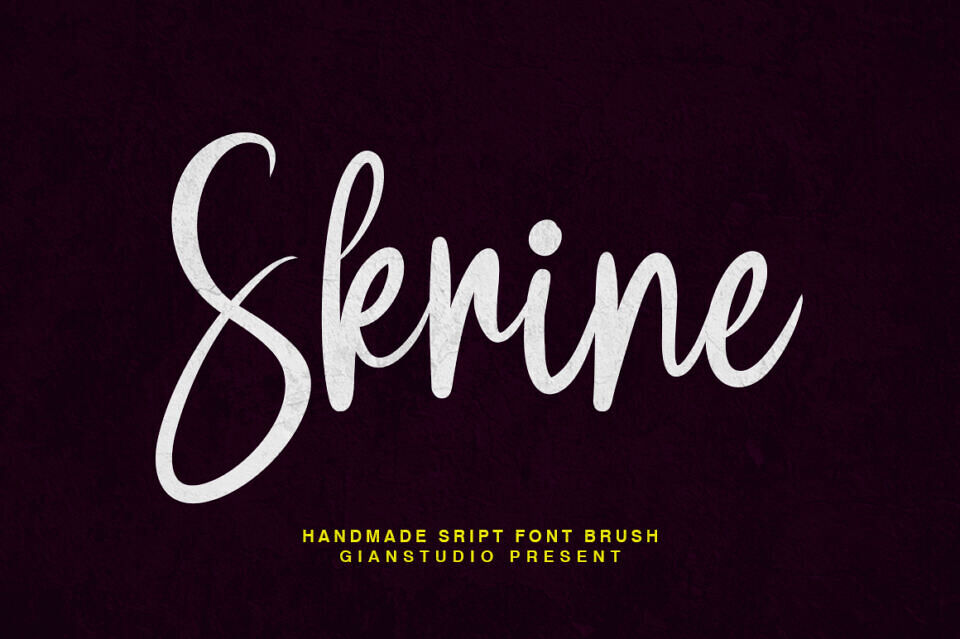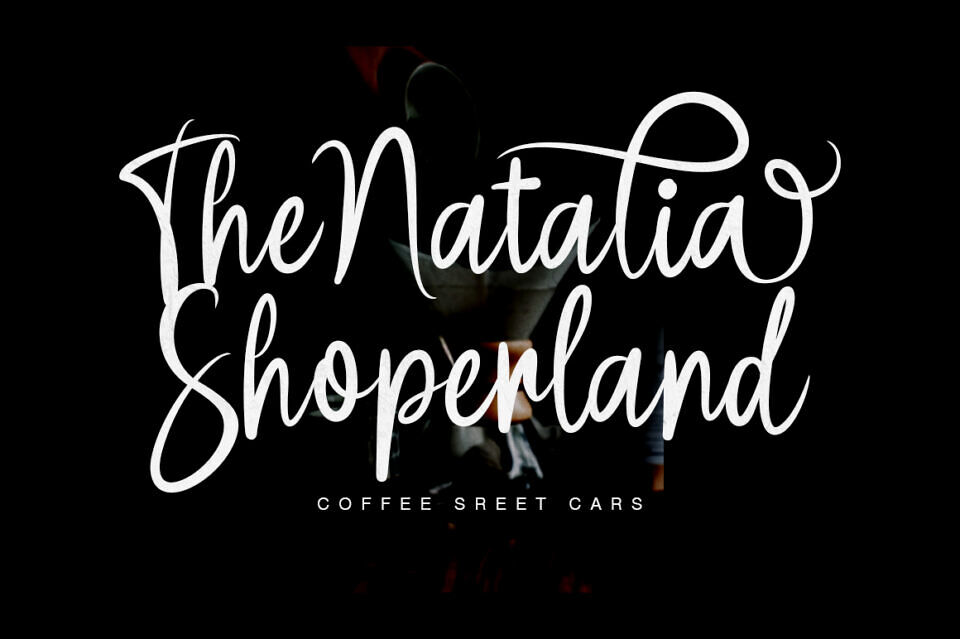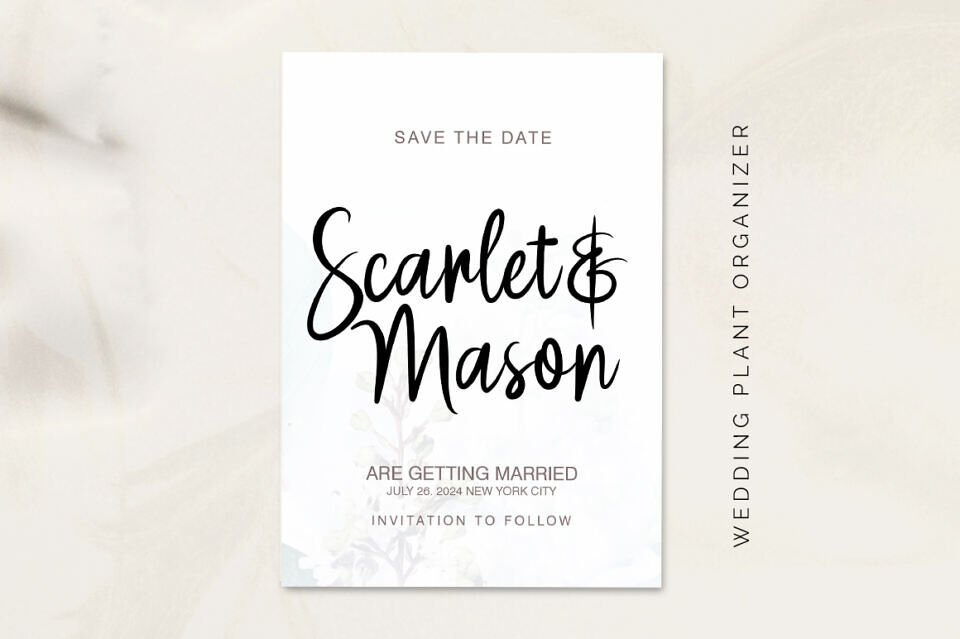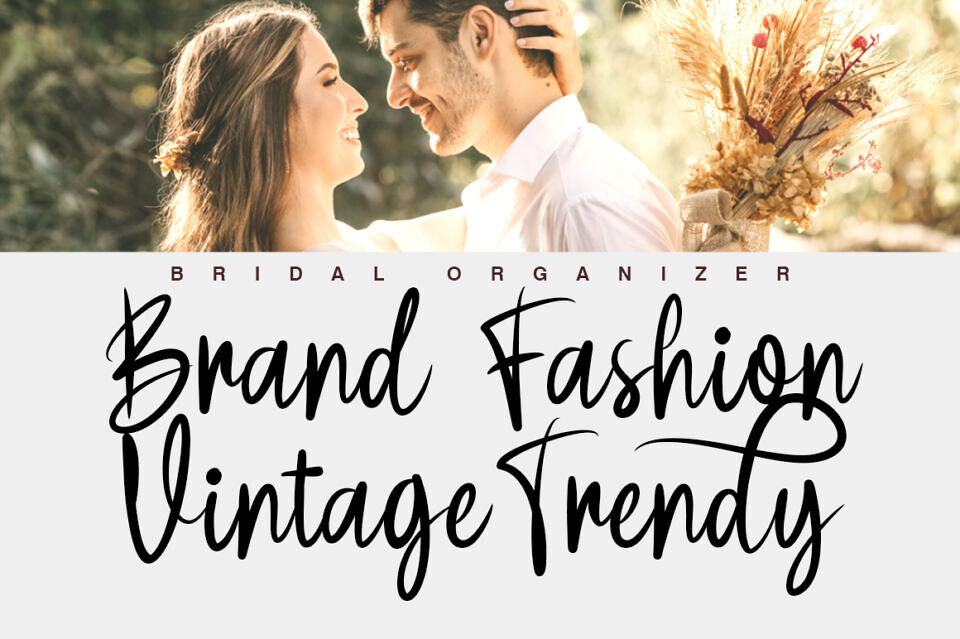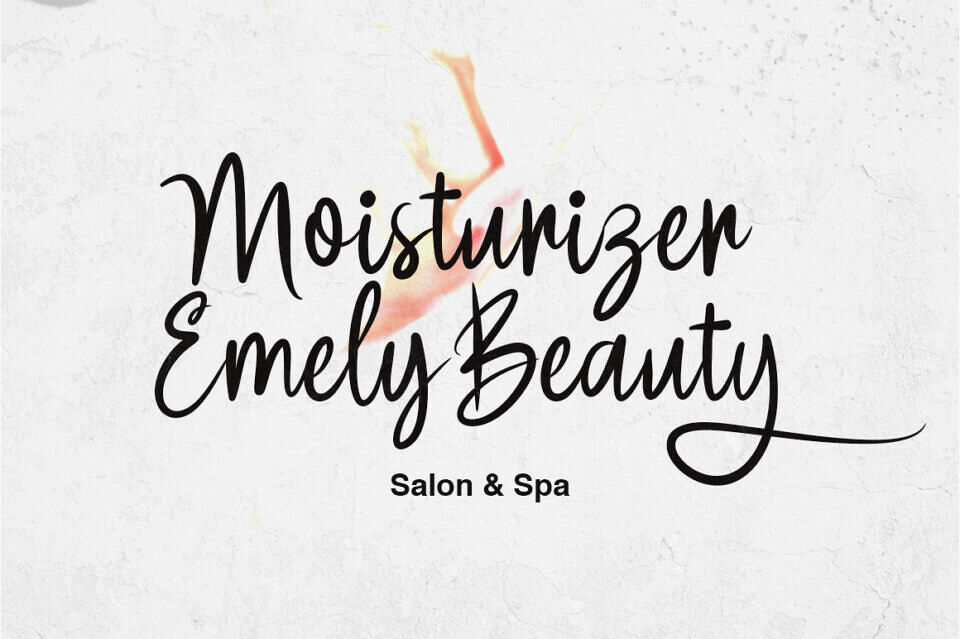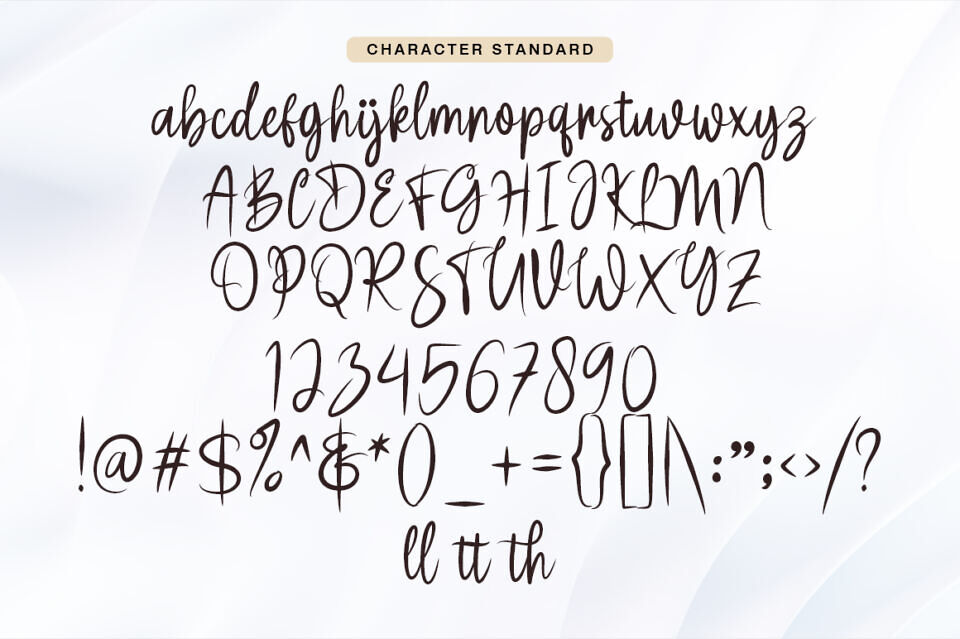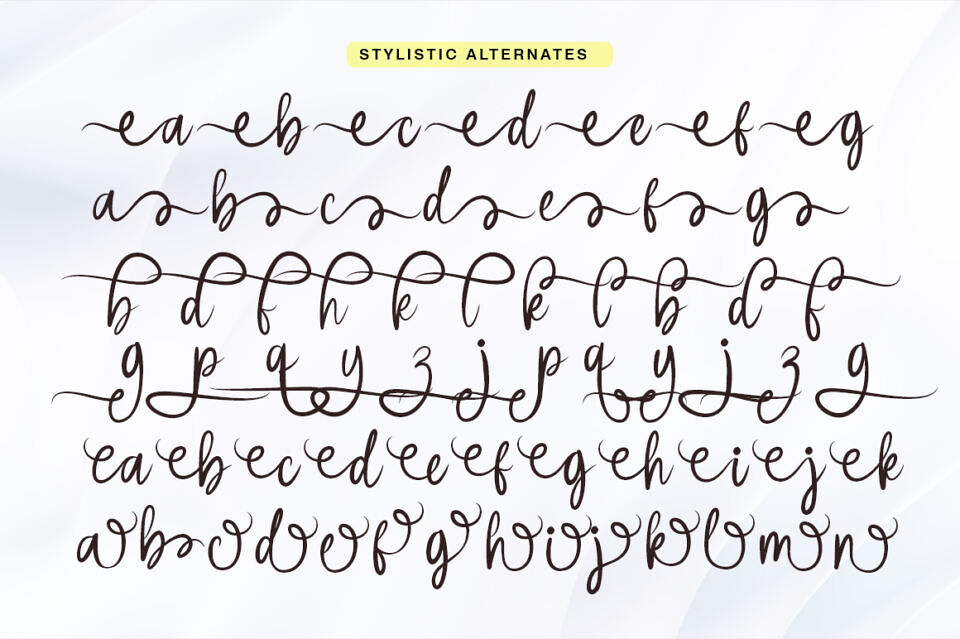
Skrine is a type of font that has an elegant and classy style. These fonts tend to have soft, graceful curves, with subtle details and balanced proportions.
Typically, Skrine is used for designs that require a feminine or luxurious touch, such as wedding invitations, greeting cards or promotional materials for brands with a stylish and exclusive image. Elegance and understated feel are the hallmarks of the Skrine font, making it a popular choice for design projects that require a special touch.